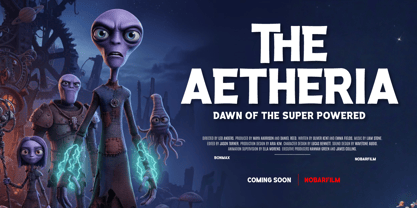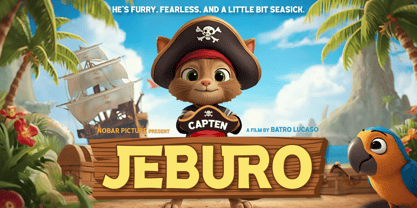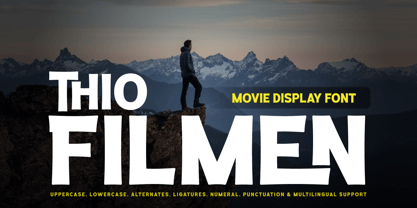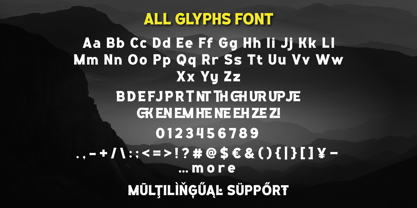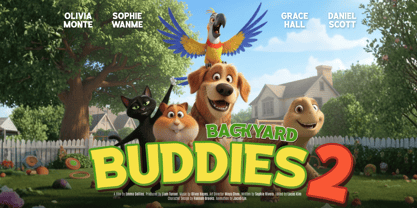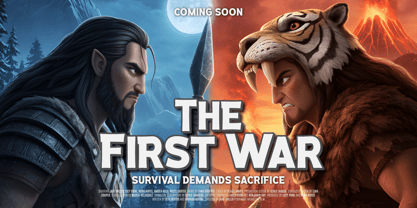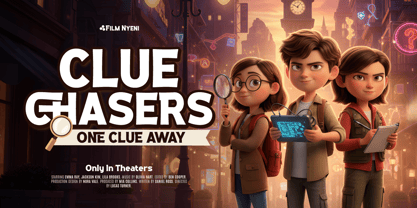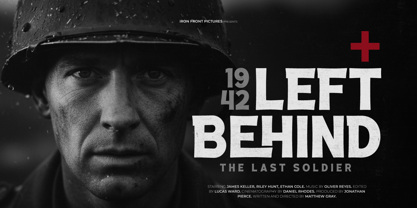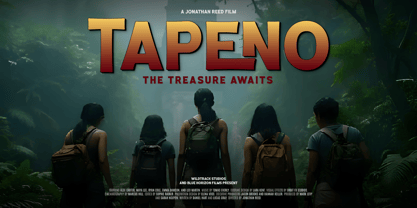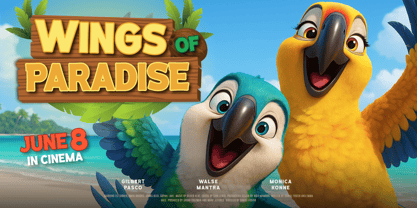
Thio Filmen – Movie Display brings bold cinematic energy inspired by the world of modern movie posters and action film titles. Each letter is crafted to project drama and strength thick, expressive, and designed to capture attention instantly. Perfect for movie posters, studio logos, and entertainment branding that demands a heroic and high-energy look.
With alternates, ligatures, and multilingual support, Thio Filmen offers flexibility for diverse creative projects. Its modern yet slightly cartoonish style adds a touch of fun while keeping a professional edge.
Created for designers who want to showcase a cinematic identity, Thio Filmen brings grandeur and personality to every composition. Its bold structure and balanced proportion make every headline feel like an epic movie scene.
- All glyphs and Feature
- Multilingual Support: Fully supports 85+ languages, including: